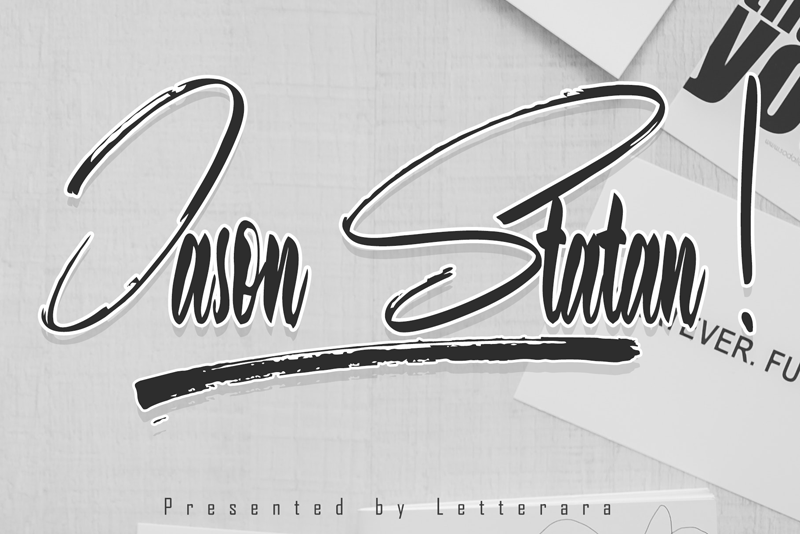
Preview and download Jason Statan Font. Created by Thomas Aradea in Script Brush styles with 100% Free license.
Jason Statan is a fun and bold handwritten font with an urban twist. Get inspired by its lovely charm, and turn any design project into a stand out! Thanks for checking out my store, and feel free to get in touch if you have any questions! thomasaradea@gmail.com VISIT OUR STORE : https://www.creativefabrica.com/designer/thomasaradea/ https://thehungryjpeg.com/store/letterara https://graphicriver.net/user/thomas_aradea/portfolio https://vsual.net/shop/thomasaradea/ https://crella.net/store/thomasaradea-store/ Paypal Accoun for donation (support me): https://www.paypal.me/thomasaradea please follow me on behance & instagram to stay up to date for my latest job, and let's be friends Behance : https://www.behance.net/thomasaradb028 Instagram : https://www.instagram.com/thomas_aradea/?hl=id / @thomas_aradea |